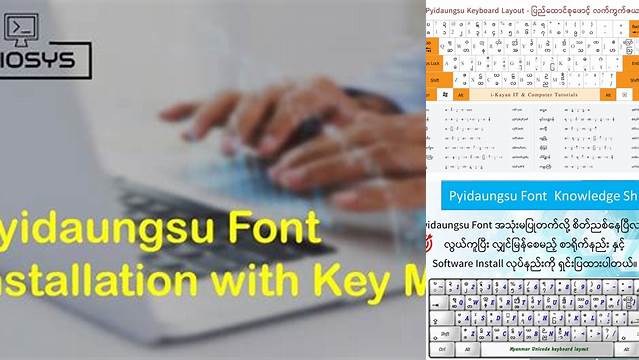
Understanding the Pyidaungsu Font
Alright, before we jump into the download, let's chat about what the Pyidaungsu font actually is. This font is primarily used for the Burmese script, also known as the Myanmar language. It's a crucial element for anyone working with Burmese text on their computers. The font is designed to render the complex characters and diacritics of the Burmese alphabet correctly. Without the right font, you might see boxes or garbled text instead of readable Burmese characters. That's where Pyidaungsu comes in, saving the day! It ensures that everything displays properly, allowing you to communicate effectively. The font has been specifically crafted to handle the nuances of the Burmese language, so you get the best possible display. It's not just about seeing the letters; it's about seeing them the way they are meant to be seen. The design of the font itself is quite elegant, with graceful curves and a readability that makes it perfect for both formal and informal use. For those creating presentations, documents, or just communicating with others, the Pyidaungsu font is a must-have tool. The importance of this font extends beyond mere aesthetics. It’s about cultural representation, ensuring that the beauty and integrity of the Burmese language are maintained in the digital realm. Using the correct font shows respect for the language and its users. It's like giving a voice to the words, making sure they are heard loud and clear. This font is an essential tool for anyone wanting to engage with or create content in the Burmese language on their Windows 10 system. Whether you're a student, a professional, or just someone interested in Burmese culture, the Pyidaungsu font is a valuable resource.
Why You Need Pyidaungsu Font on Windows 10
So, why should you bother downloading the Pyidaungsu font for your Windows 10? Well, if you plan on reading, writing, or creating anything in the Burmese language, it is absolutely essential! Imagine trying to read a book where every other word is a box or a question mark. Not ideal, right? The Pyidaungsu font solves this problem by ensuring that all Burmese characters are displayed correctly. Beyond just functionality, having the right font allows you to fully engage with the language and its cultural context. You can create documents that are easy to read and professionally presented, whether it's for personal use or for work. Also, the availability of this font helps support and preserve the Burmese language in the digital world. By making it easier to access and use Burmese text, it encourages more people to write and share content in the language. This font allows for seamless communication, which is vital for anyone working with the language. Also, it provides a consistent and accurate display across different platforms and applications. So, if you are someone who wants to connect with Burmese culture, or simply need to create documents in Burmese, the Pyidaungsu font is your go-to solution. It ensures that you can read and write Burmese text correctly, preserving the integrity of the language. With this font, you won’t have to worry about gibberish or missing characters; the Pyidaungsu font is there to make sure everything displays perfectly.
The Role of Fonts in Displaying Burmese Characters
When dealing with a language like Burmese, which has a unique and intricate character set, the choice of font becomes very important. Traditional fonts might fail to display all the complex glyphs correctly, resulting in missing characters or distorted text. This is where specialized fonts like Pyidaungsu shine. The Burmese alphabet includes a variety of unique characters and diacritics. These features are necessary for the accurate rendering of the text. The Pyidaungsu font is designed to account for all of these variations. The Pyidaungsu font is created with these factors in mind, ensuring that the text looks exactly as it should. It is designed to handle the intricate nature of the Burmese script with perfection. It prevents your text from becoming a jumbled mess and ensures that it is clear and readable. Without this font, you'd be missing out on crucial details. Whether you are writing a professional report or just sending a friendly email, having the right font guarantees that your message is understood. It's not just about appearance; it's about preserving the integrity of the language and making sure that you can express yourself effectively. The font gives a clear and accurate display of the text. It is a simple yet powerful tool. The choice of font ensures that all of the characters and diacritics are displayed properly. This allows for correct reading and clear communication.